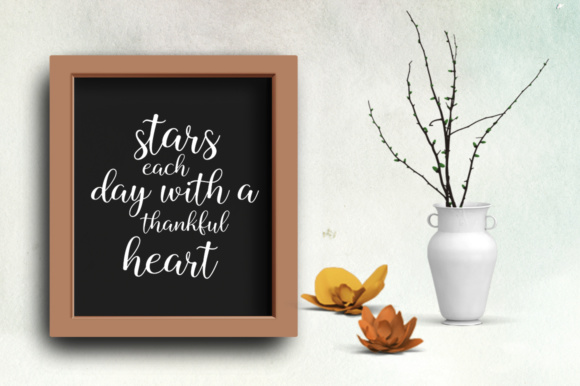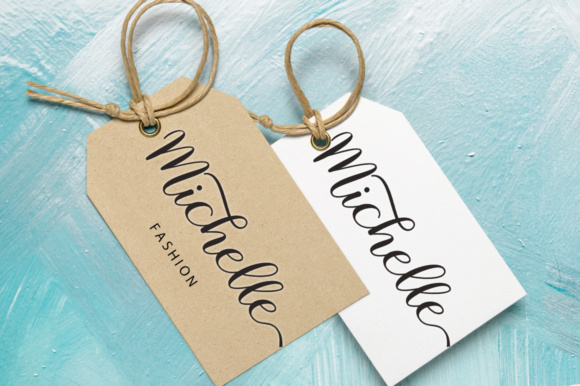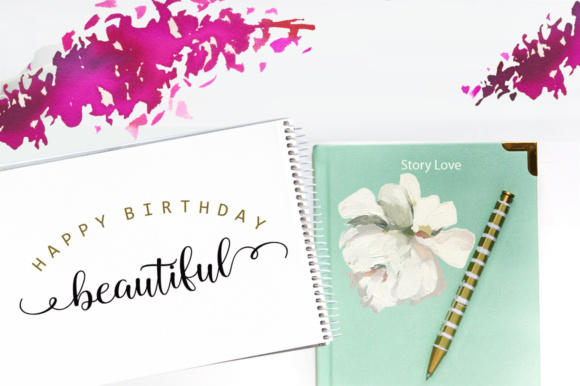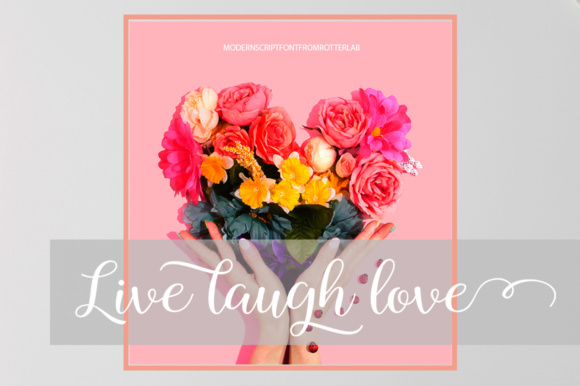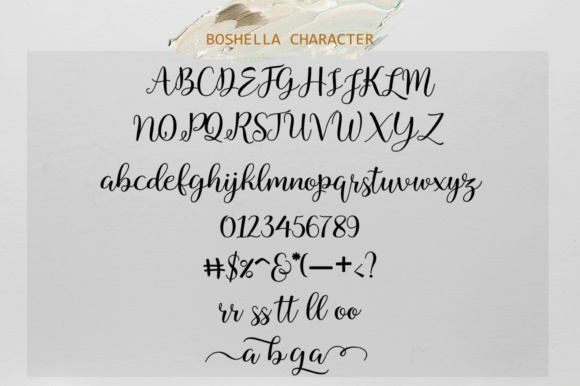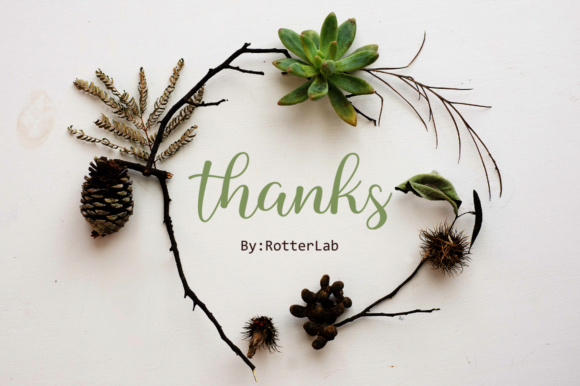
The Quest for the Perfect Script Font: Discovering Boshella Script
I still remember the countless hours I spent searching for the ideal script font for a wedding invitation project. My client wanted something that exuded elegance, yet had a touch of modern whimsy. I scrolled through font after font, but none seemed to capture the perfect blend of sophistication and playfulness. That was until I stumbled upon Boshella Script – a game-changer in the world of modern script fonts.
First Impressions: A Modern Script Font with Flair
Boshella Script is a stunning addition to any designer’s font collection. Its irregular baseline and trendy, feminine style make it perfect for a variety of creative projects. From wedding invitations and thank you cards to quotes, greeting cards, logos, and business cards, Boshella Script is sure to impress.
So, what makes Boshella Script so special? Here are a few things I love about this beautiful font:
• ✨ Unique and eye-catching design with an irregular baseline
• ✅ Perfect for ink or watercolor designs, adding a touch of elegance and sophistication
• ✅ Highly versatile and suitable for a wide range of creative projects
• ✅ Easy to read and understand, even in smaller font sizes
While Boshella Script is an exceptional font, there are a few minor quirks to be aware of:
• ⚠️ Some letters may appear a tad too condensed or spaced, requiring manual kerning
• 🤔 Limited availability of certain OpenType features, such as ligatures or stylistic alternates
The Story Behind Boshella Script: Designer Inspiration
According to its designer, Boshella Script was inspired by the art of hand-lettering and the beauty of handwritten scripts. With a focus on creating a modern, yet elegant font, the designer aimed to craft a typeface that would be both versatile and visually stunning.
What makes Boshella Script unique? Boshella Script features an irregular baseline and a trendy, feminine style, making it perfect for modern designs.